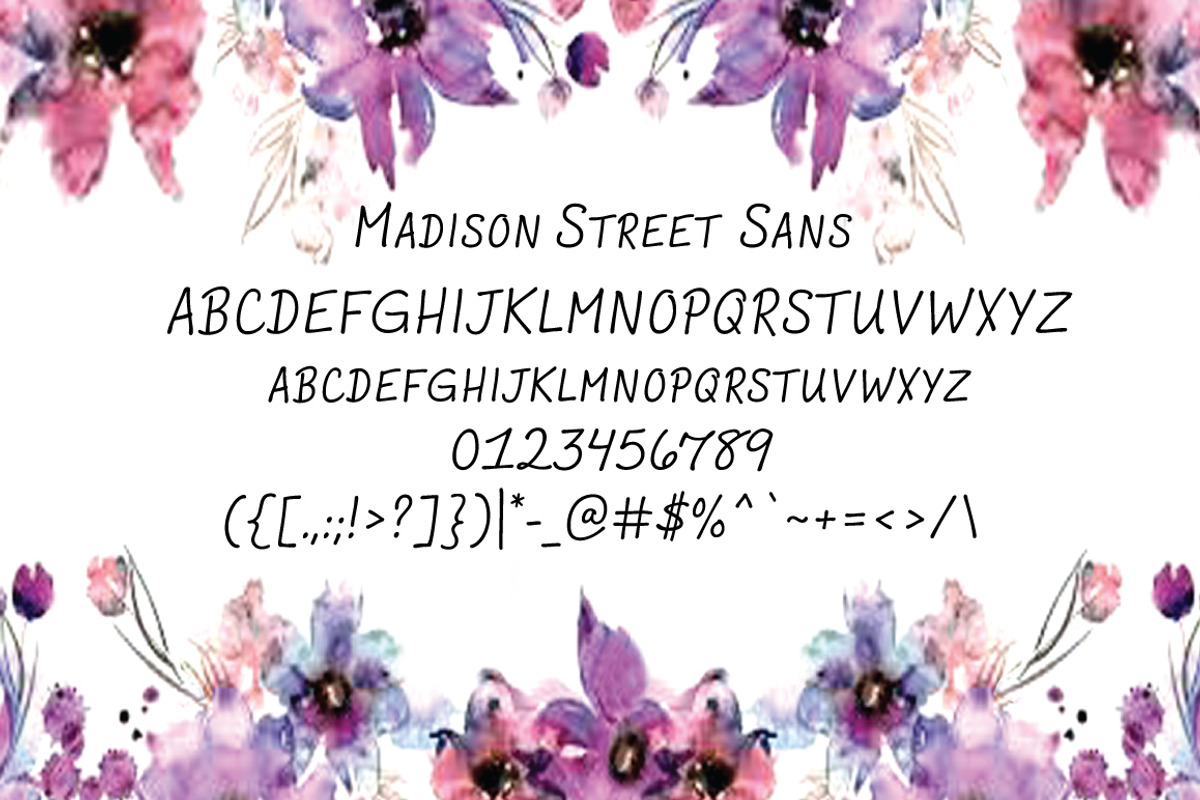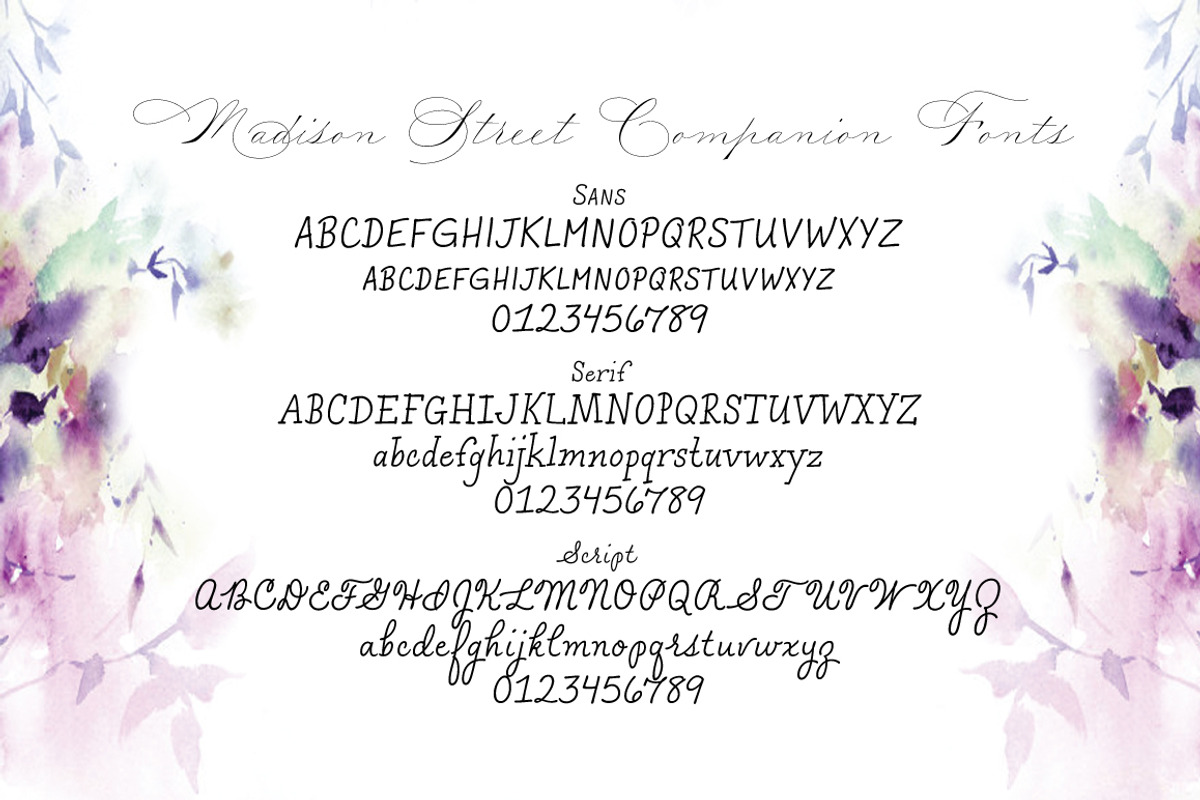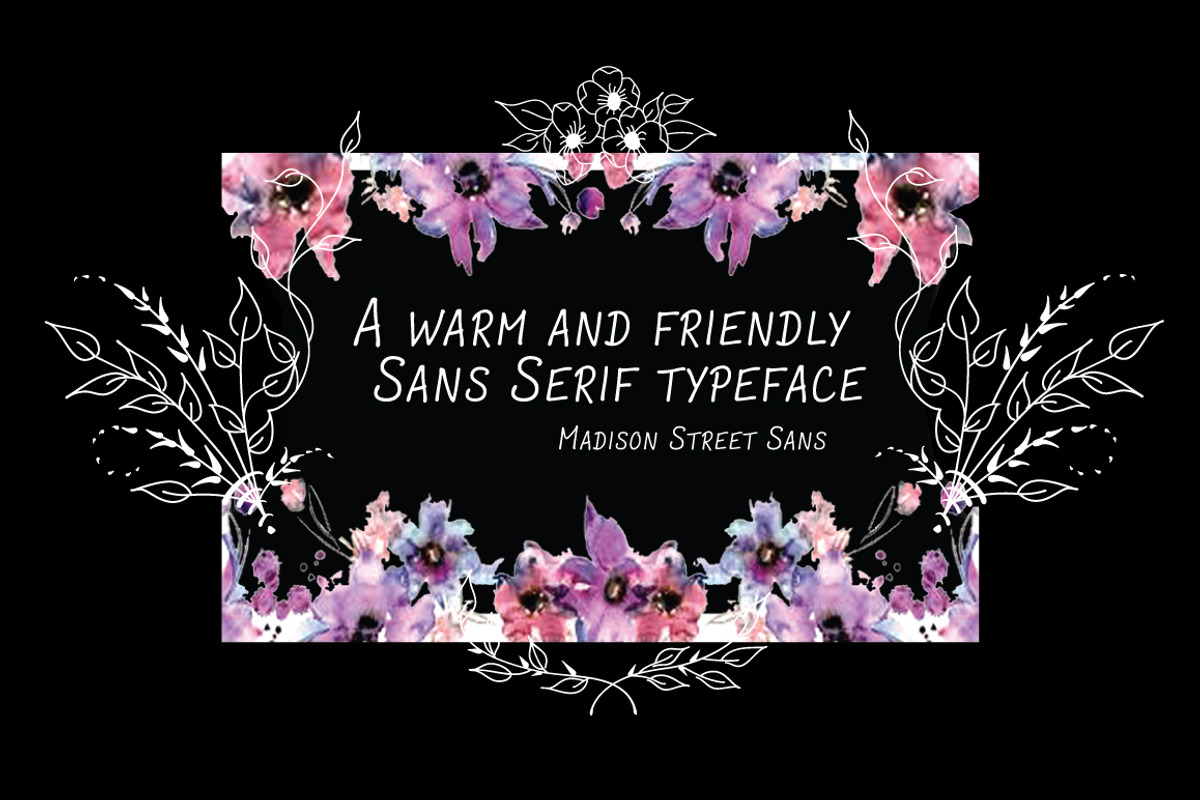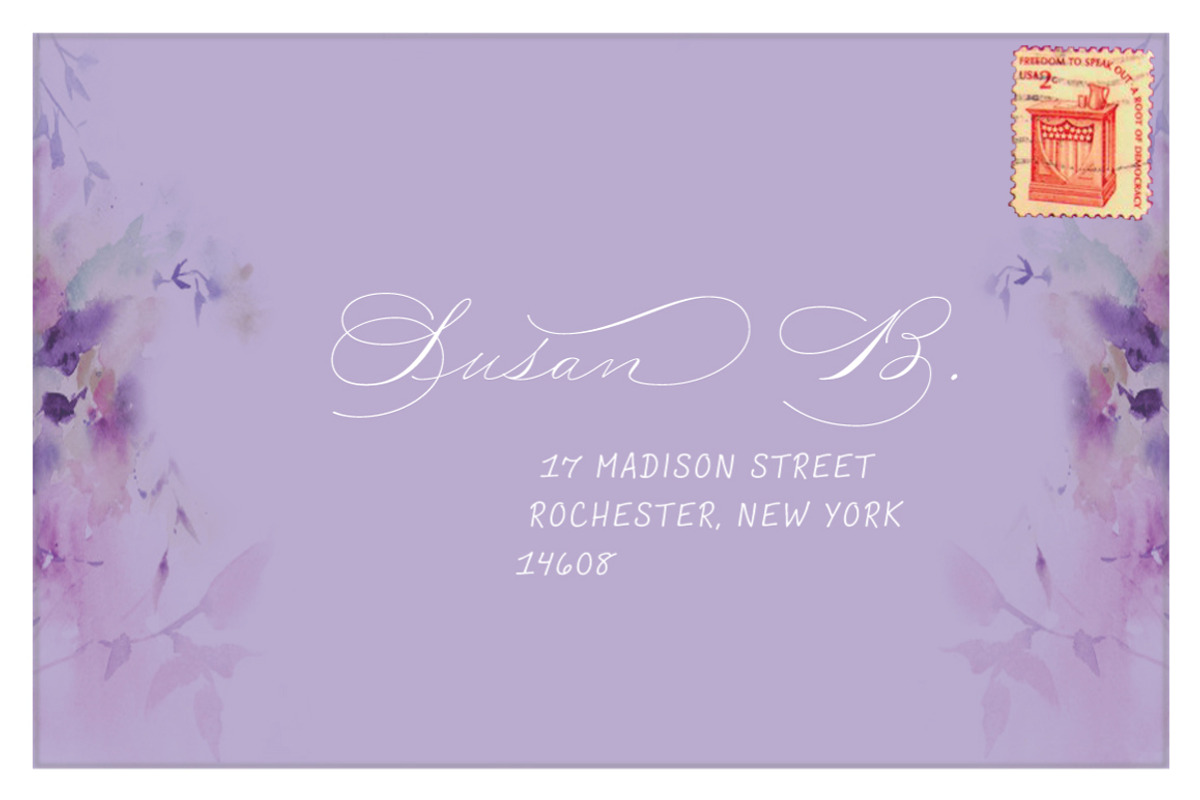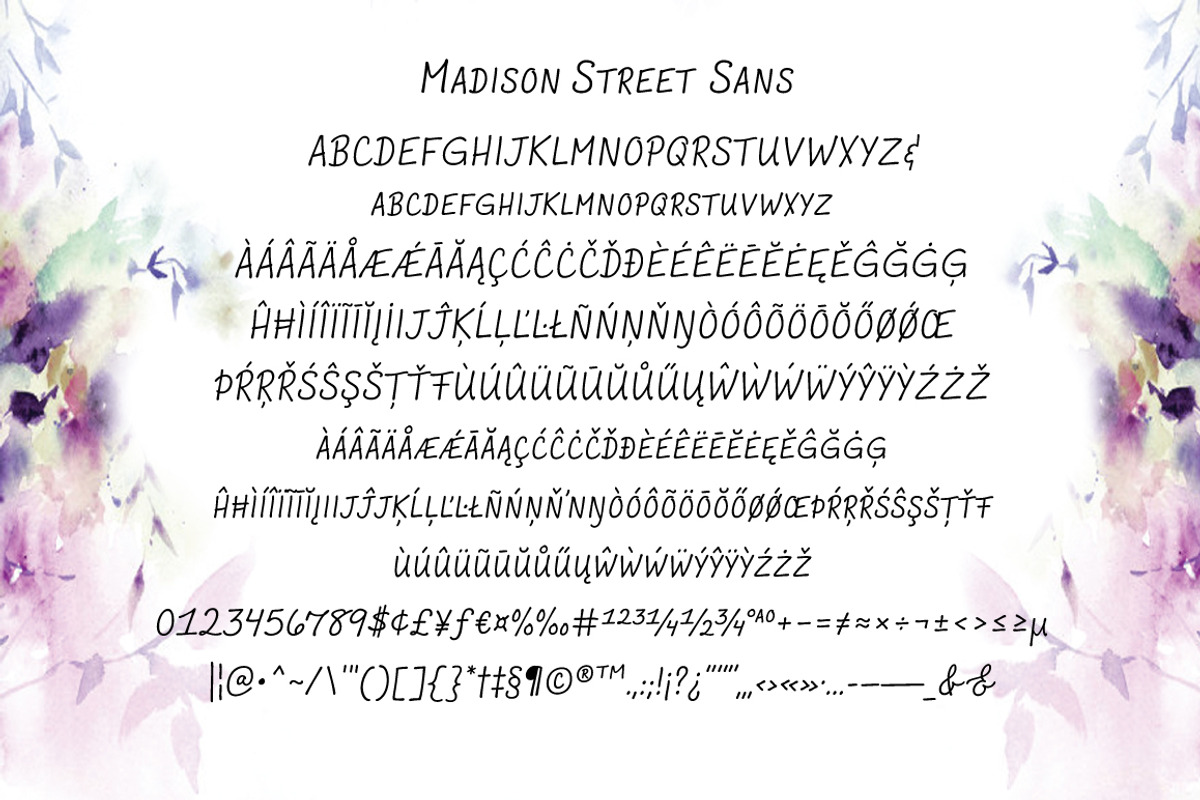
Madison Street Sans
Madison Street Sans is one of three companion text fonts for Madison Street Family fonts. It is an interpretation of Elaina DeBoard's printing style and pairs nicely with the Spencerian typefaces. It is a very friendly hand drawn, casual, sans serif. Madison Street Sans features smallcaps instead of a traditional lowercase.